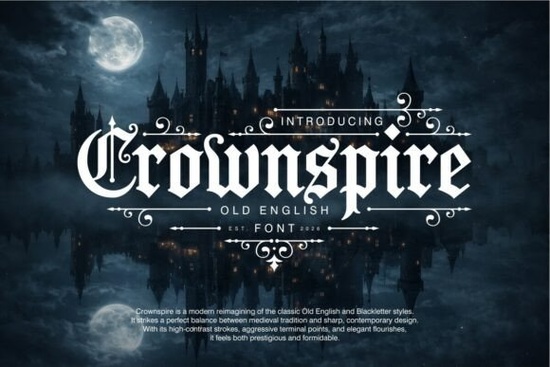
If you’re looking for a modern blackletter font that keeps the old-school gothic feel but works for today’s designs, Crownspire Font is worth a close look. It reimagines classic Old English and Blackletter styles with sharper, more geometric letterforms. The result is a typeface that looks both medieval and contemporary perfect for projects that need a bold, authoritative presence.
What makes Crownspire different from traditional blackletter fonts?
Most blackletter fonts can be hard to read, especially at small sizes or in long blocks of text. Crownspire modernizes those historic strokes to improve readability while keeping the dramatic, gothic vibe. Its key features include:
- High-contrast strokes that create a strong visual impact.
- Aggressive terminal points inspired by gothic arches and cathedral spires hence the name.
- Elegant flourishes that add a touch of ornamentation without making the font feel cluttered.
- Heavy weight that dominates any space it’s used in, so your message gets noticed fast.
This isn’t a watered-down, generic blackletter. It keeps the mystery and power of old manuscripts but cleans up the shapes so your audience can actually read what you’re saying.
Where can you use Crownspire Font?
Because of its strong personality, Crownspire works best in display applications where you want to make a statement. Here are some popular uses:
- Logos & branding – Especially for businesses in the music, apparel, or fantasy genres. It gives a handcrafted, premium feel.
- Gaming titles – Whether it’s a dark fantasy RPG or a modern action game, this font sets the tone from the first glimpse.
- Apparel design – Print-on-demand sellers love using Crownspire for t-shirts and hoodies because it’s bold enough to work on its own or layered with graphics.
- Poster art – Concert posters, movie posters, or event flyers benefit from the font’s commanding presence.
- Book covers – Dark fantasy, horror, or historical fiction covers look instantly more professional with this typeface.
The architectural influence means it pairs naturally with ornate borders, filigree, or vintage ornaments. If you need a companion font for body text, a simple sans-serif like Beardsons Font offers a nice contrast because its lighter weight balances Crownspire’s heaviness.
Does Crownspire work with other decorative elements?
Yes. The pointed terminals and sharp edges of Crownspire mimic gothic arches, so it feels right at home next to ornamental details. For a more classic blackletter feel, you might also compare it with the Gothic Old English Font that one stays closer to traditional forms while Crownspire pushes toward modern geometry. Both work well for layered designs, but Crownspire stands out when you want a sharper, more aggressive look.
Try using Crownspire in all caps for maximum impact, especially in titles or short headlines. Just avoid setting long paragraphs with it the heavy weight makes extended reading tiring for the eyes.
Quick tips for using Crownspire in your projects
- Use all caps for logos and headlines to emphasize the sharp letterforms.
- Keep spacing generous – the letters are already dense; too-tight tracking makes them hard to read.
- Pair with a light, clean sans-serif for body text or subtitles (e.g., a thin Helvetica or Gotham).
- Layer with simple graphics – a subtle background texture or a single ornamental element is enough.
- Test on dark backgrounds – blackletter fonts often look even more dramatic in white or gold on black.
If you’re a print-on-demand seller or small business owner, consider using Crownspire for limited edition runs or seasonal designs. Its strong personality helps products stand out in crowded marketplaces.